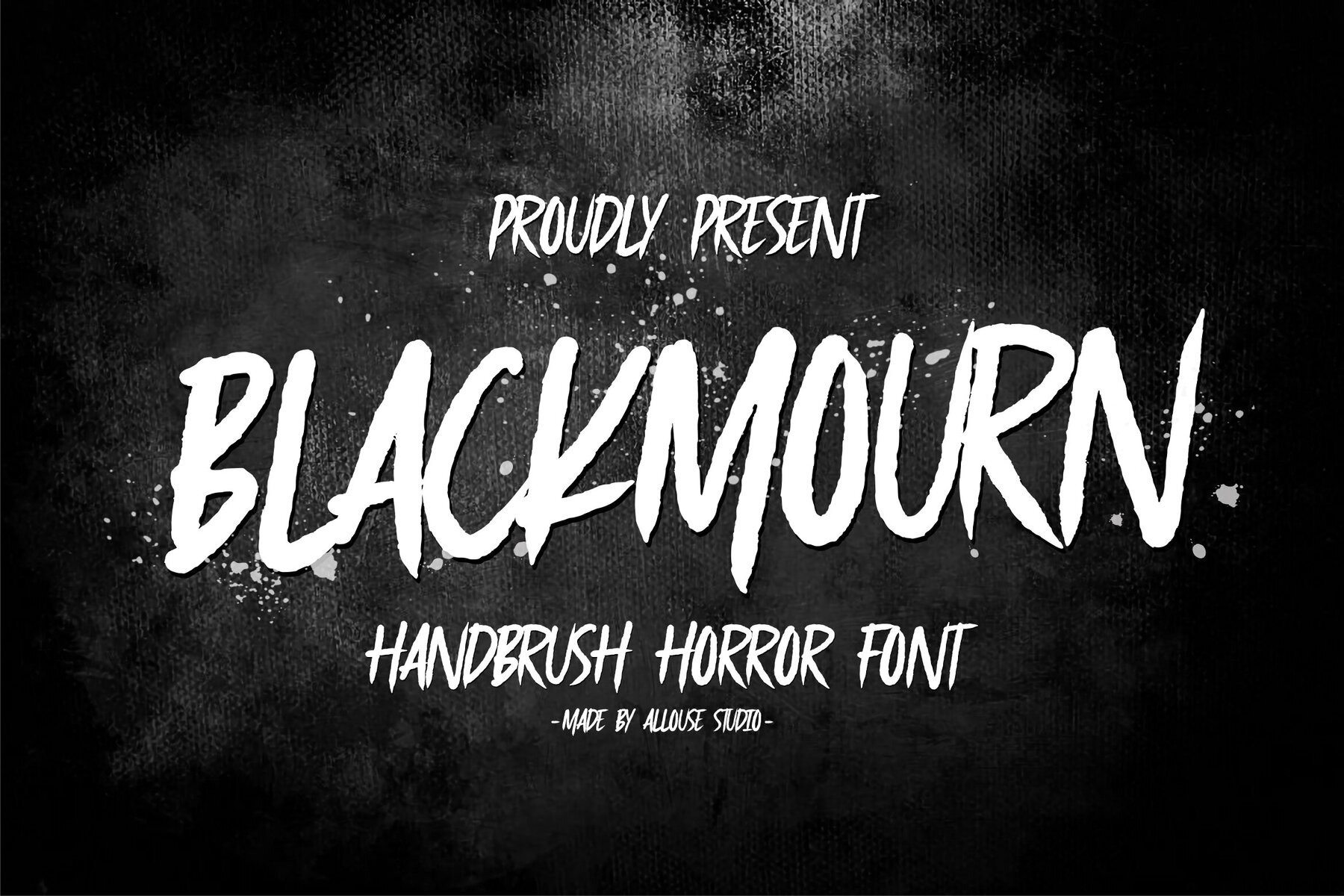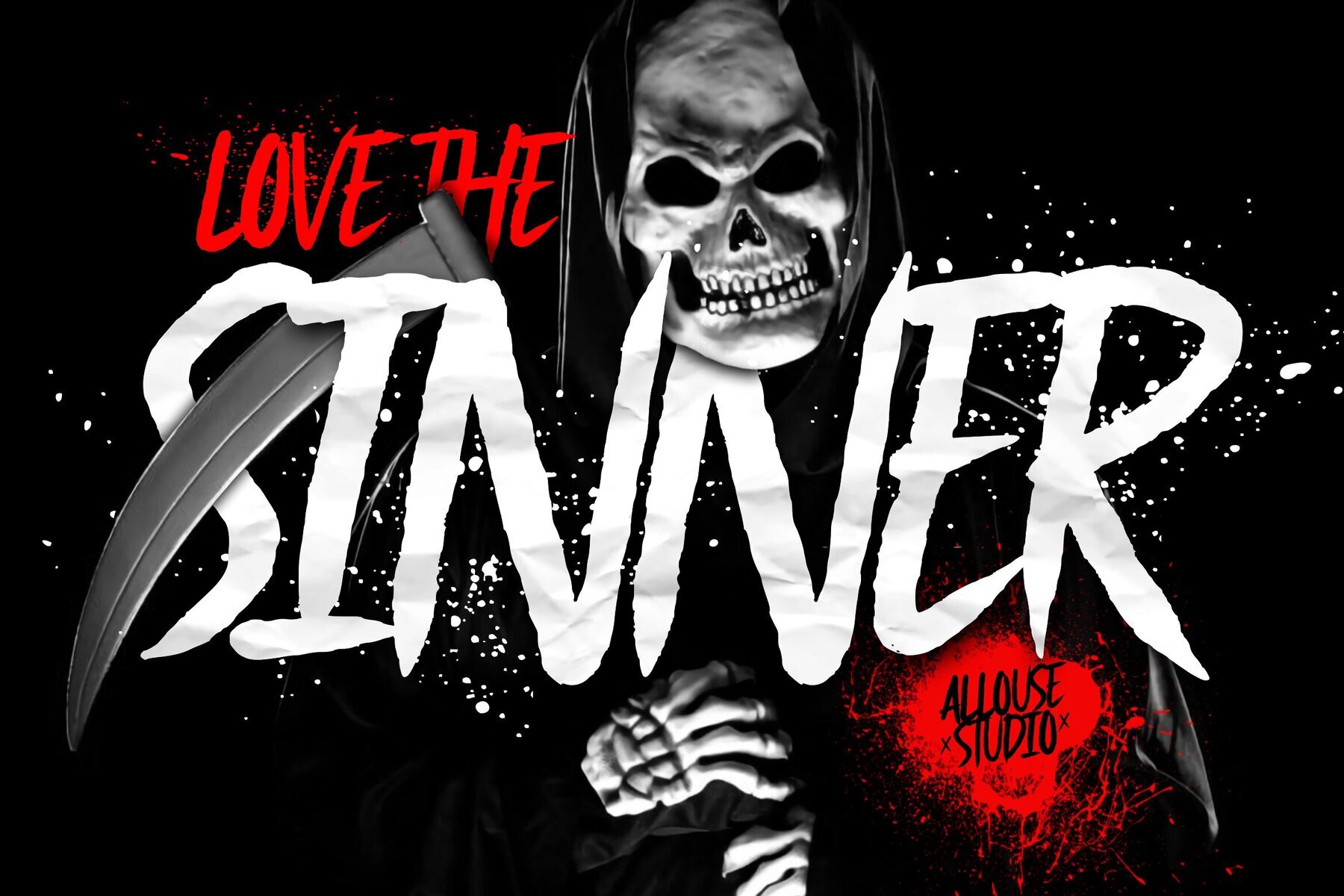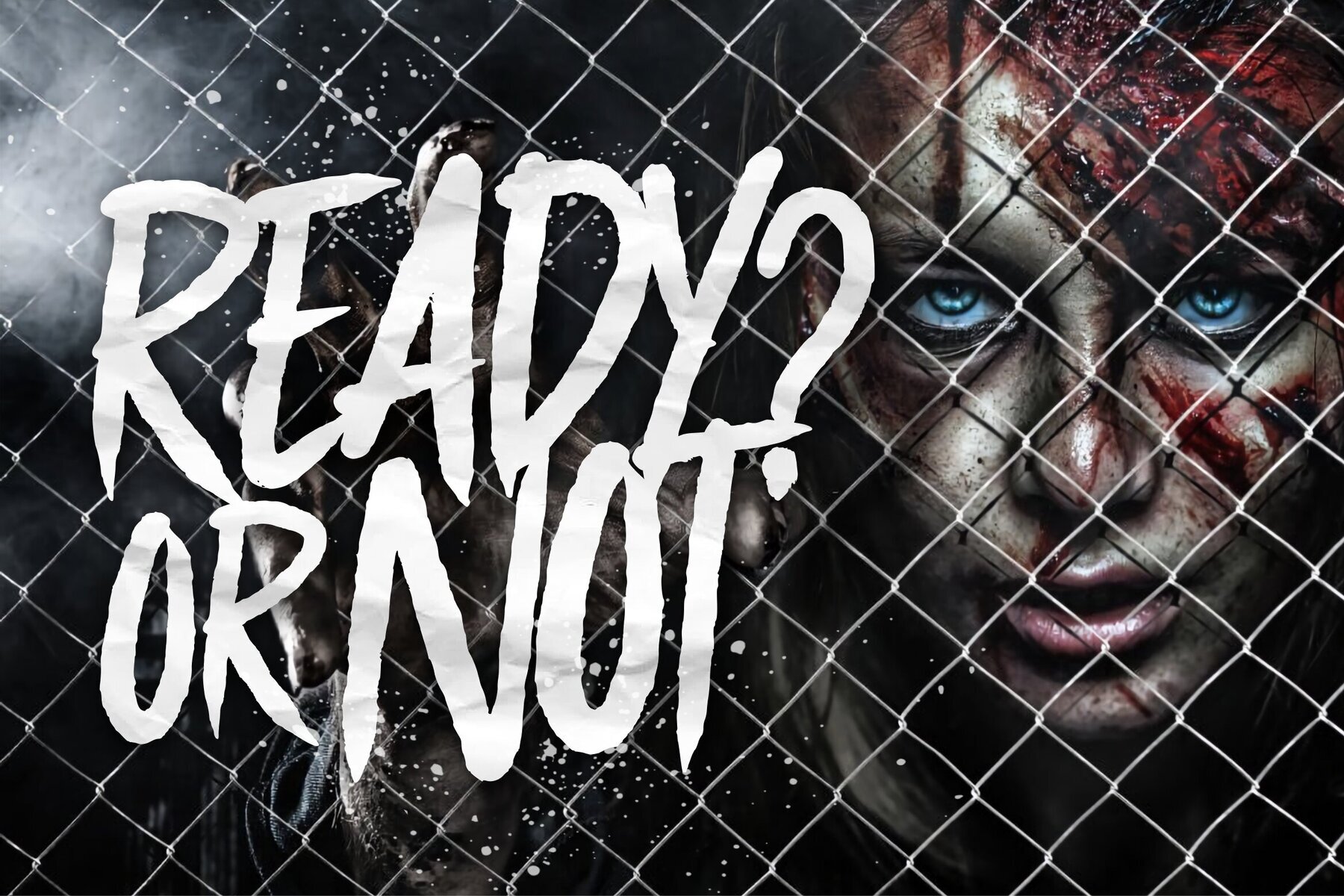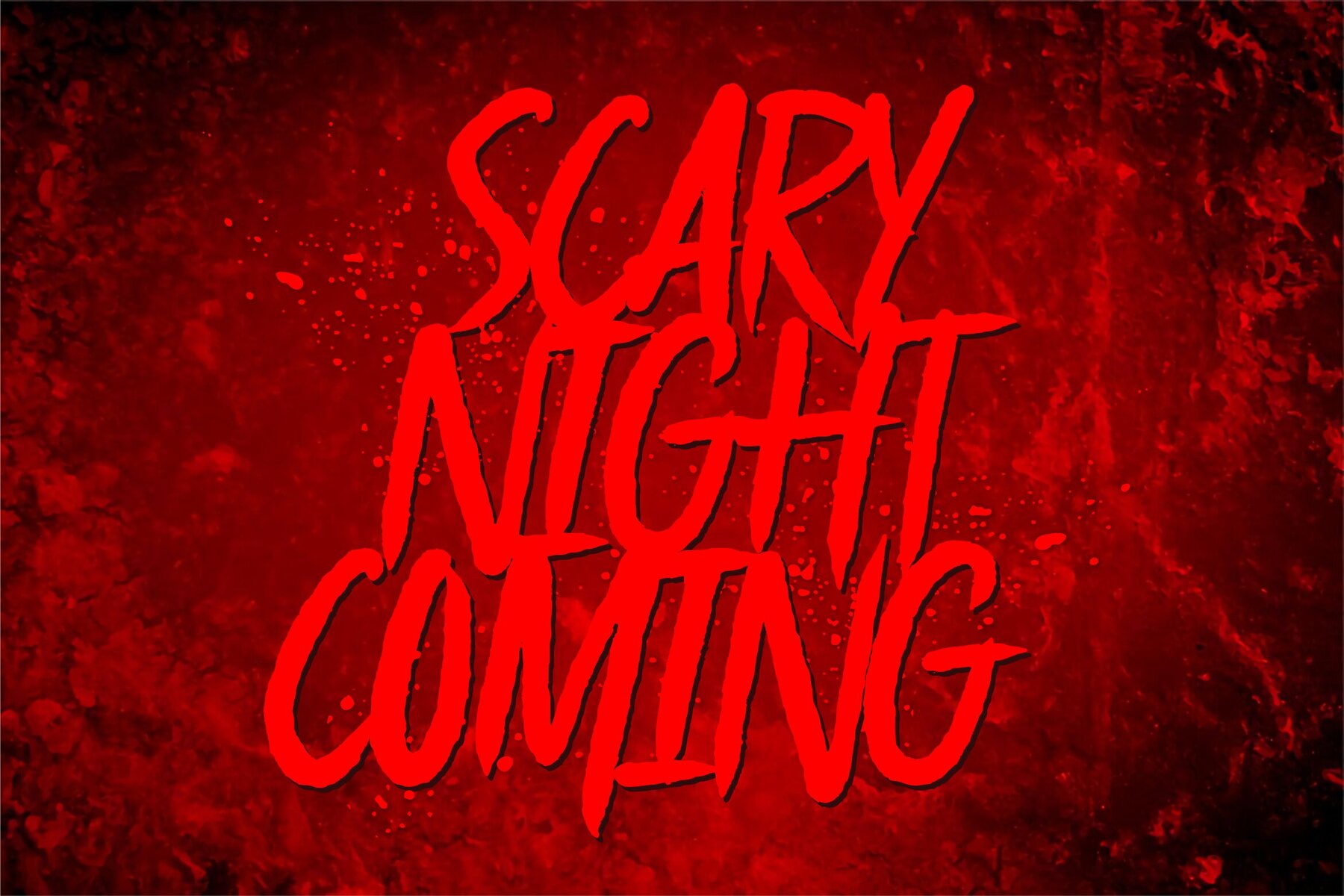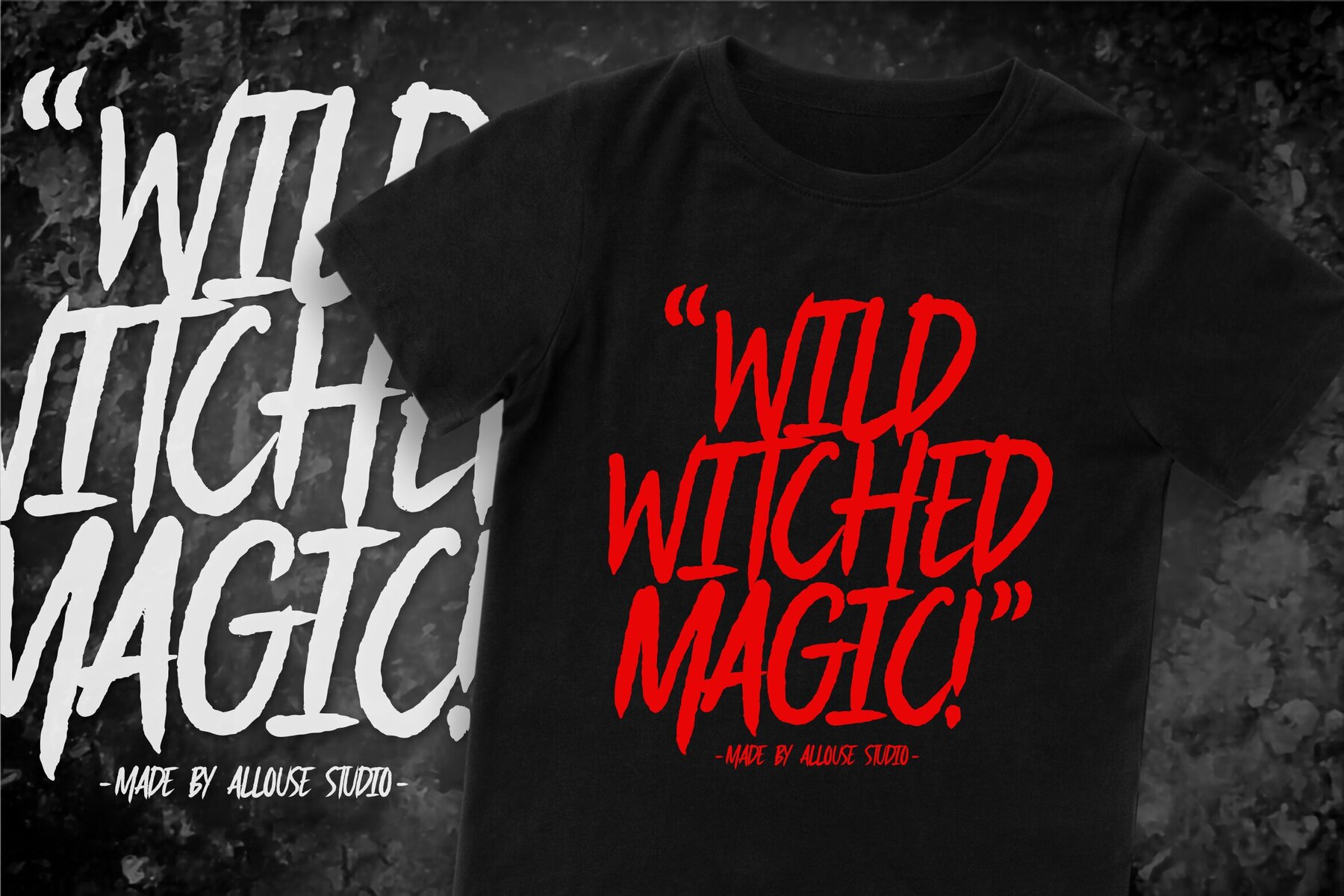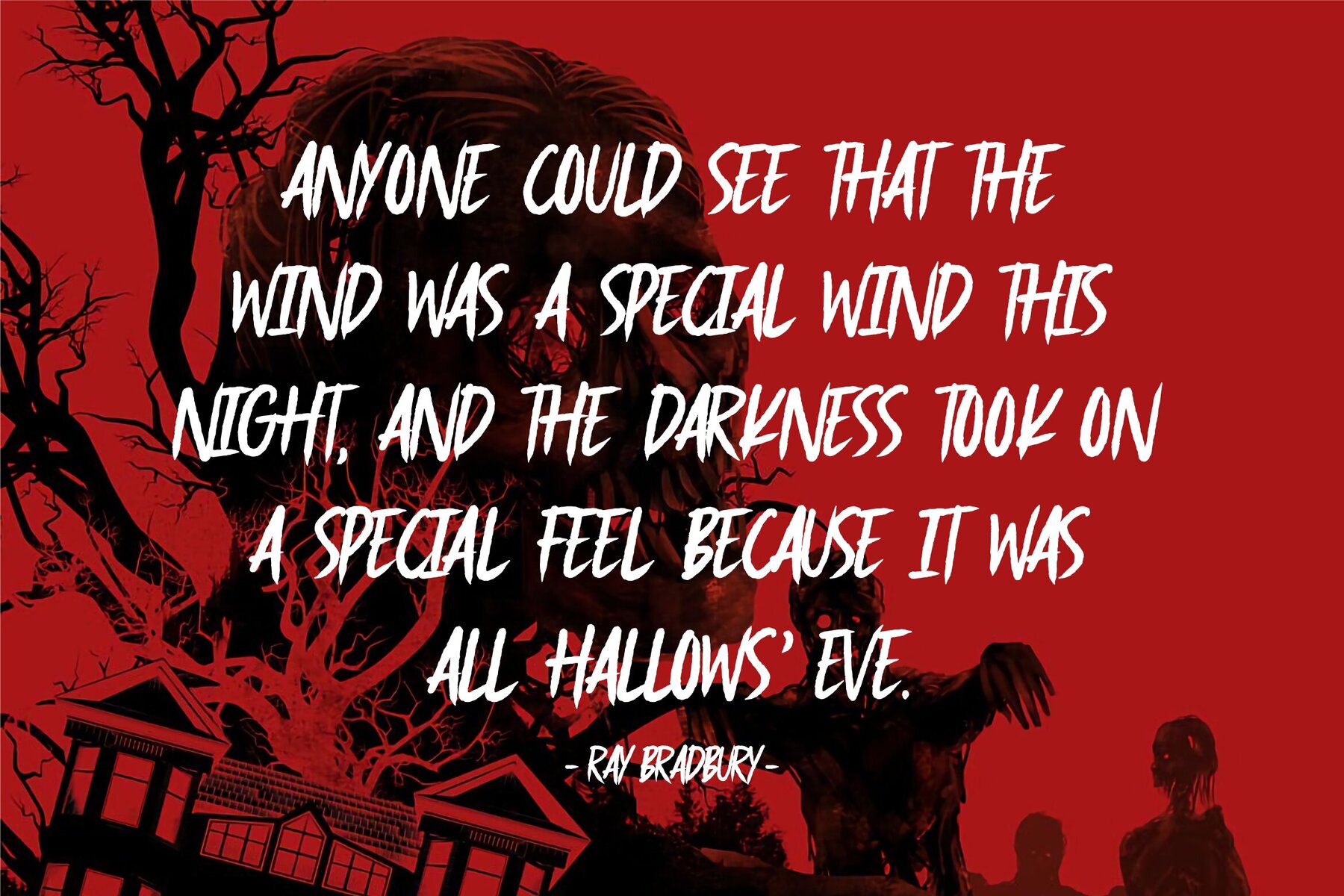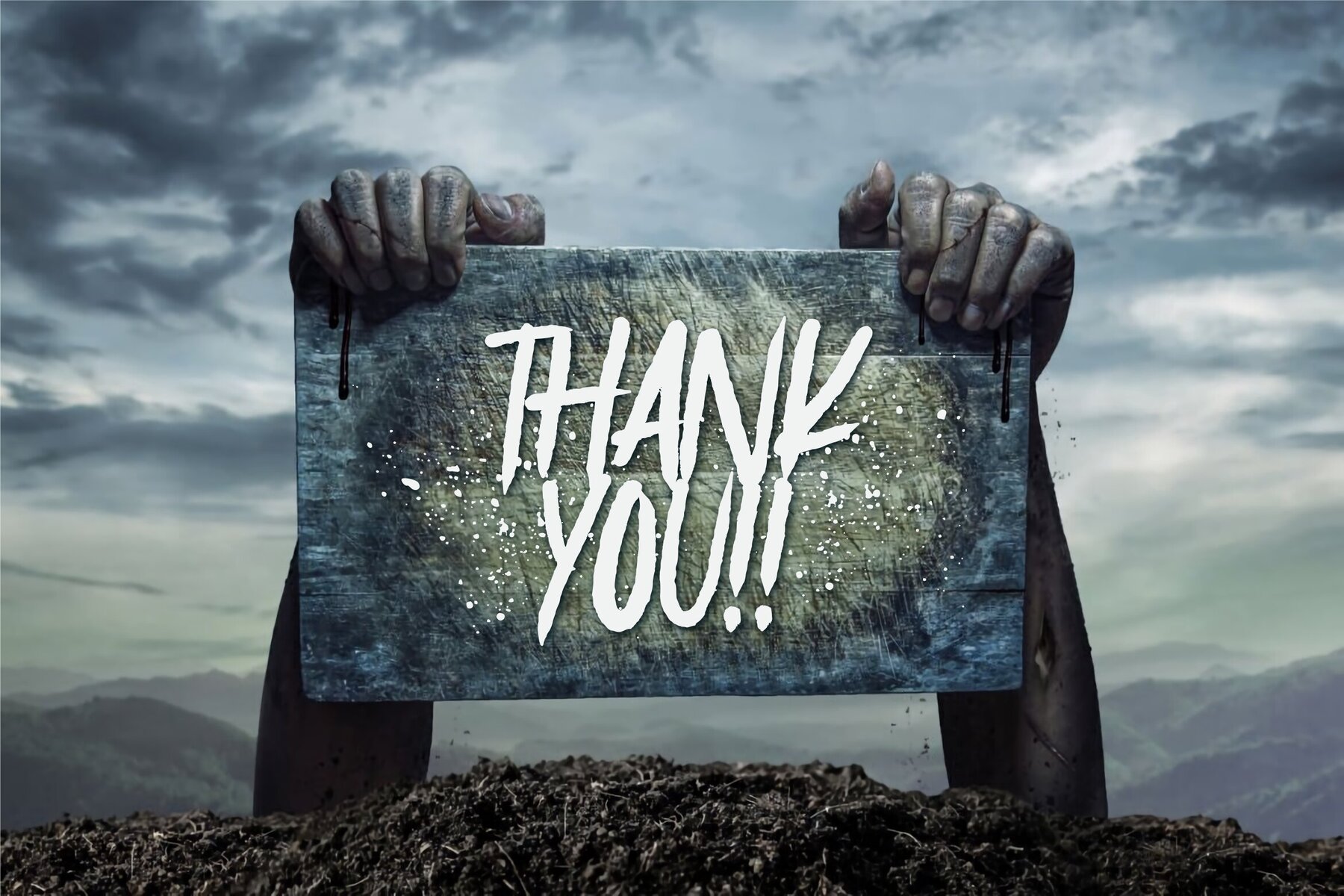
Blackmourn Font
Blackmourn offers a perfect blend of elegance and versatility, making it an ideal choice for various creative projects. Whether you're working on product packaging, branding, magazine layouts, social media content, or wedding invitations, Blackmourn's stylish design will help your words stand out against any background.Blackmourn: Versatile Typeface for Diverse Applications
Applications and Benefits